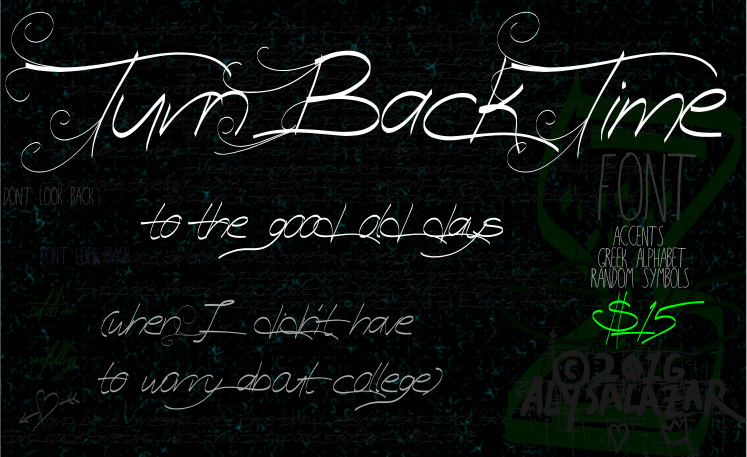
some sort of fancy-script writing that i had a lot of fun making. so much fun, in fact, that i decided to randomly add in all sorts of other characters, including a greek alphabet and a couple random emojis. enjoy! -- as always, donations are highly appreciated. -- THANKS FOR DOWNLOADING! |